In Use: Capucine and Anchor Pair Up in Seattle
Seattle Met, a magazine covering the local scene in Seattle, WA, has been using Anchor and Bryant Compressed since May, when designer André Mora came on board. But it was for the summery July issue, with its focus on farms, foraging and other foodie adventures that Mora paired Anchor with the agile Capucine, named after the French word for the Nasturtium flower.
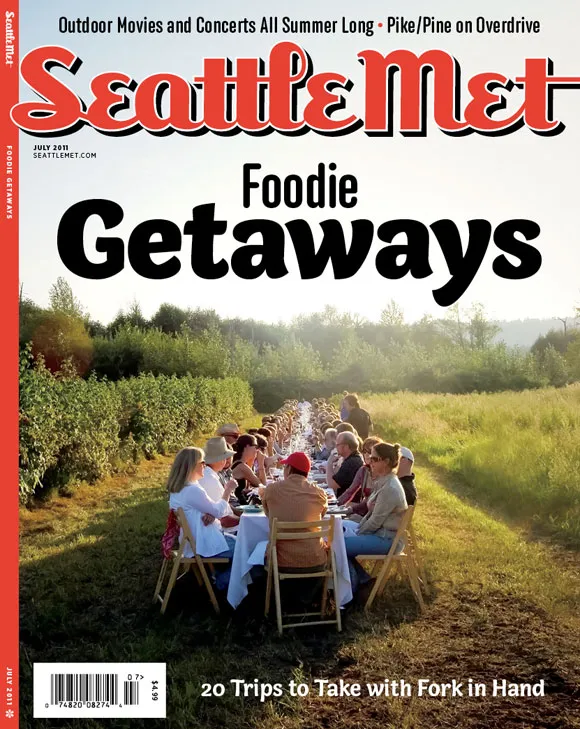
As the newest addition to our family of typefaces, it’s great to see Capucine being put to use here in a way that showcases its flexibility, from display headlines to captions.